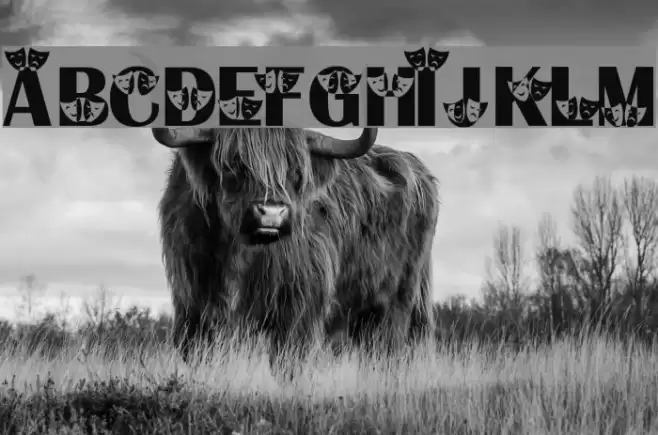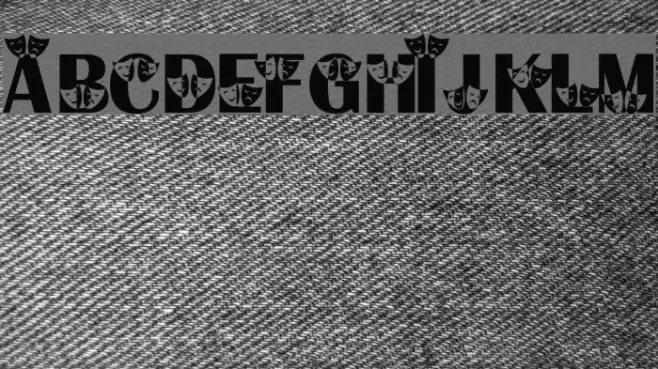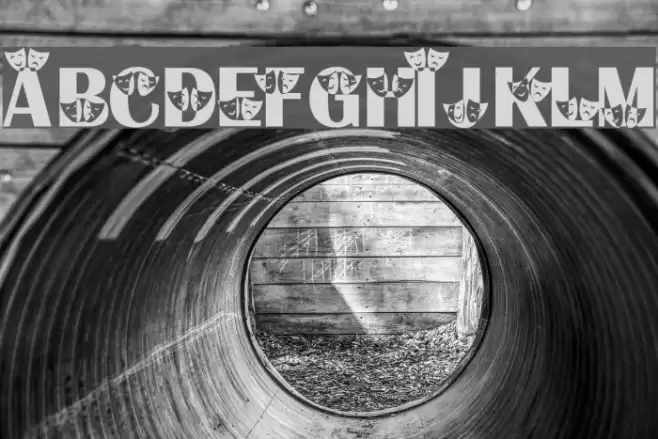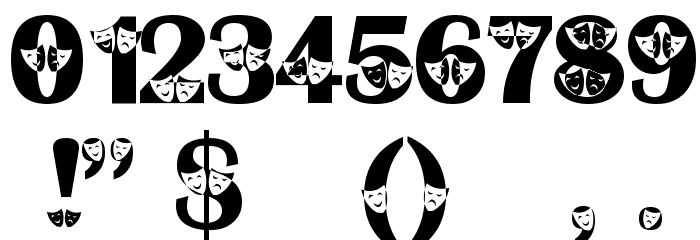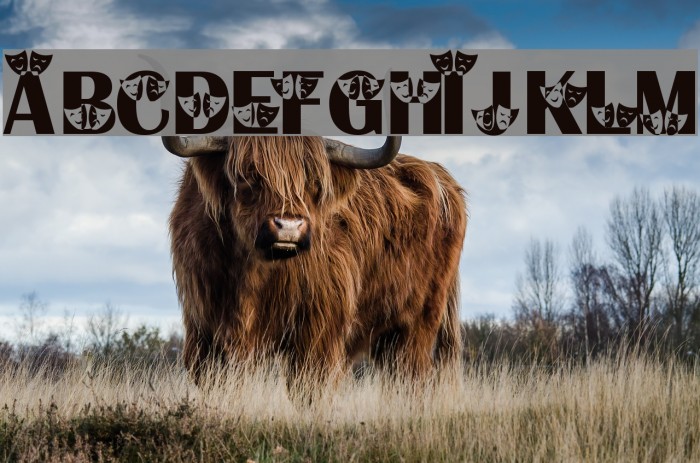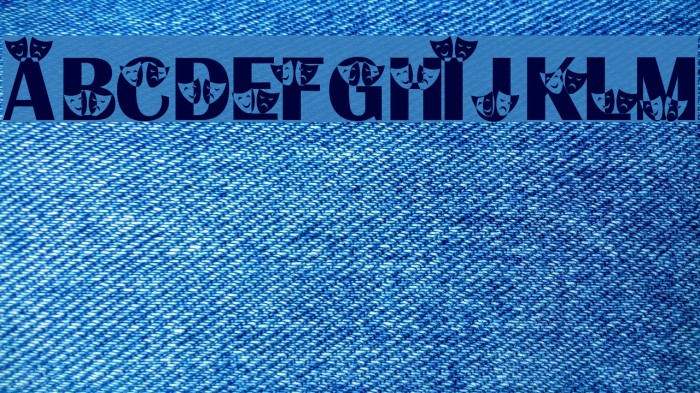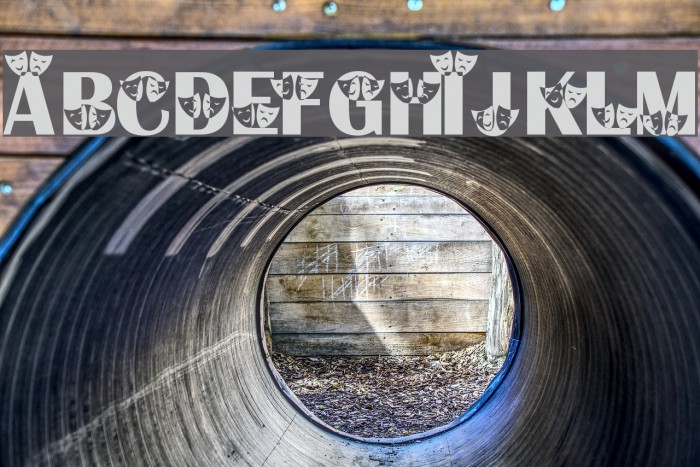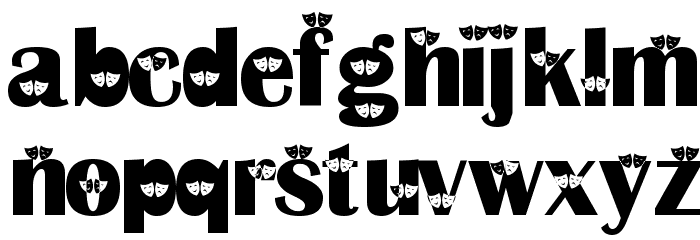
Thespian Font
Thespian Description
This font is a bold and theatrical display typeface that incorporates dramatic mask motifs within each character. The uppercase and lowercase letters, as well as numbers and special characters, are adorned with intricate mask designs, adding a unique and playful touch. The overall appearance is striking and eye-catching, making it ideal for creative projects that require a strong visual impact. The characters are well-defined with a consistent weight, ensuring readability despite the decorative elements.
A bold, theatrical font with dramatic mask motifs integrated into each character from Decorative fonts.
- Proposed Projects: Ideal for theater posters, event invitations, dramatic book covers, and any project needing a bold, theatrical flair.